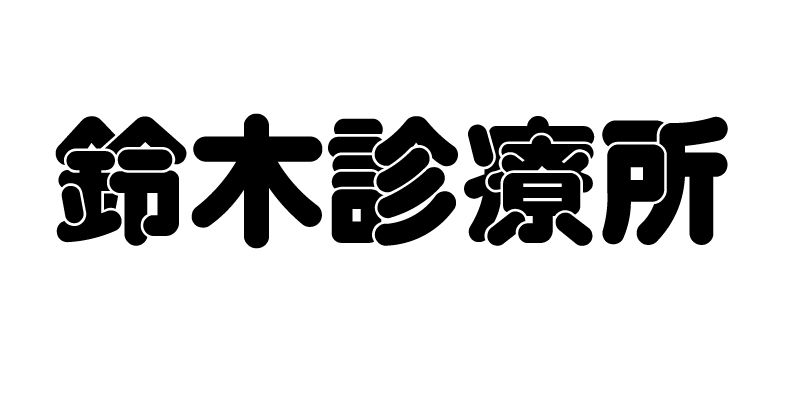
TA Kasanemarugo Font Free Download is a stylish and unique Japanese typeface with a creative blend of traditional and modern influences. The name “Kasanemarugo” (重ね丸後) suggests a stacked, rounded design, which is reflected in the font’s characteristic rounded shapes and clean structure. This font is perfect for creating visually engaging designs for branding, product packaging, titles, and signage where legibility and a unique visual identity are essential.
TA Kasanemarugo Font Free Download features smooth, rounded letterforms that convey a sense of approachability and friendliness, while maintaining a sense of order and clarity. It supports Hiragana, Katakana, Kanji, and Latin characters, making it versatile for bilingual designs that require a cohesive and unified feel across languages.
Whether you're designing for the food industry, modern cultural projects, or tech-related branding, TA Kasanemarugo delivers a contemporary yet timeless aesthetic that stands out.
Elegant, modern, and approachable—TA Kasanemarugo Font is ideal for designs that require a clean, stylish, and easy-to-read font with a contemporary flair.